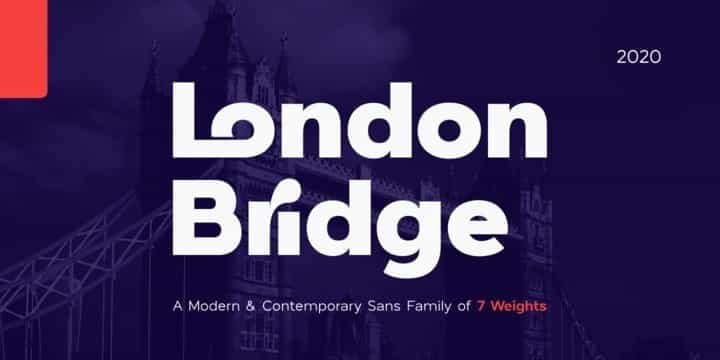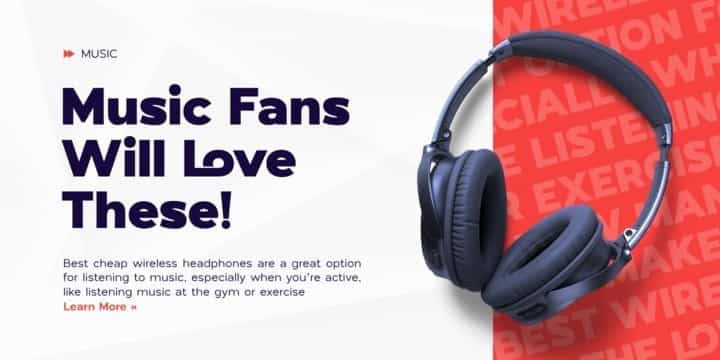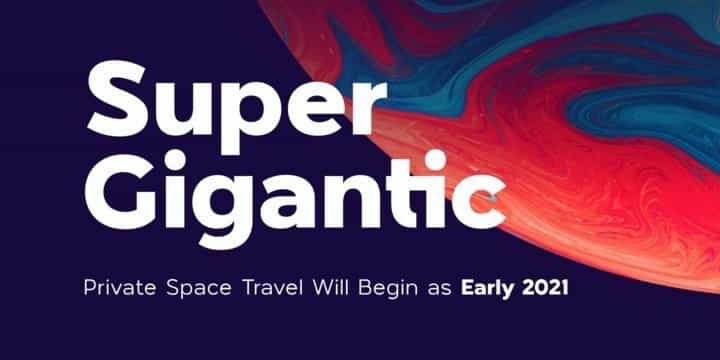
London Bridge is a contemporary Sans Serif typeface characterized by its lines and geometric aesthetics. It offers 7 weights with language support, fractions, special characters like indicators and superscripts as well as more than 30 ligatures. Designed with OpenType capabilities in mind it is ideal for design projects and display purposes.